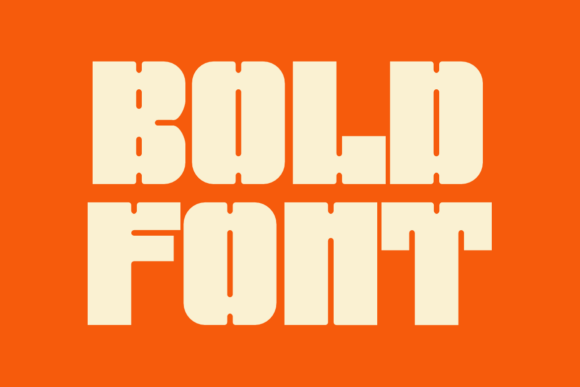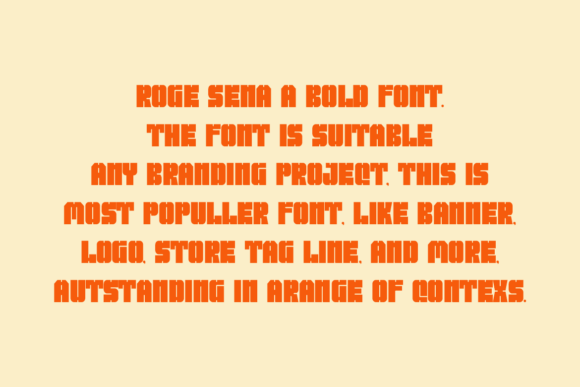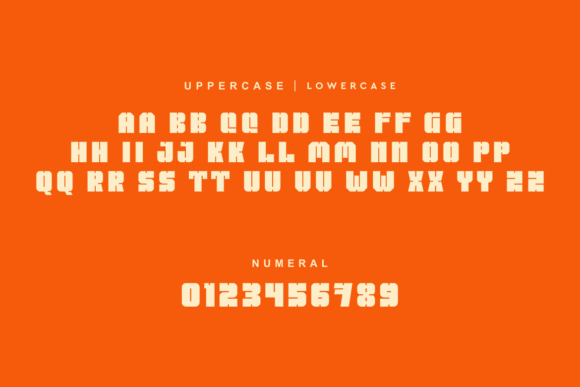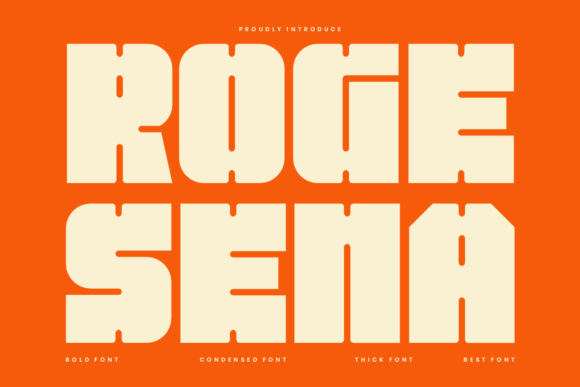
Introduction to Roge Sena Font
Roge Sena is a cool, bold display font that exudes strength and modern confidence.
Featuring thick strokes, sharp edges, and commanding letterforms, it captures a powerful and contemporary aesthetic Ideal for headlines, logos, posters, and branding, it adds a striking and dynamic presence to any design.